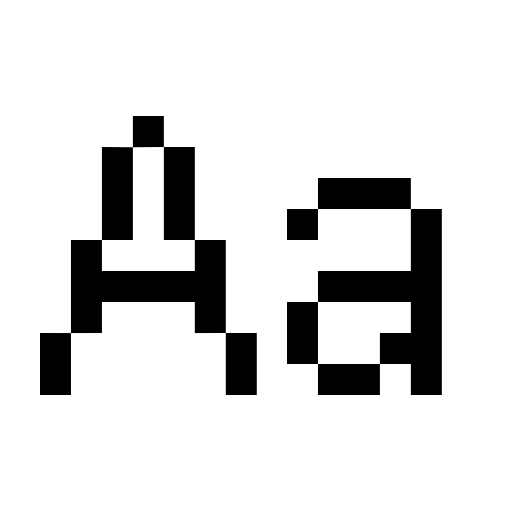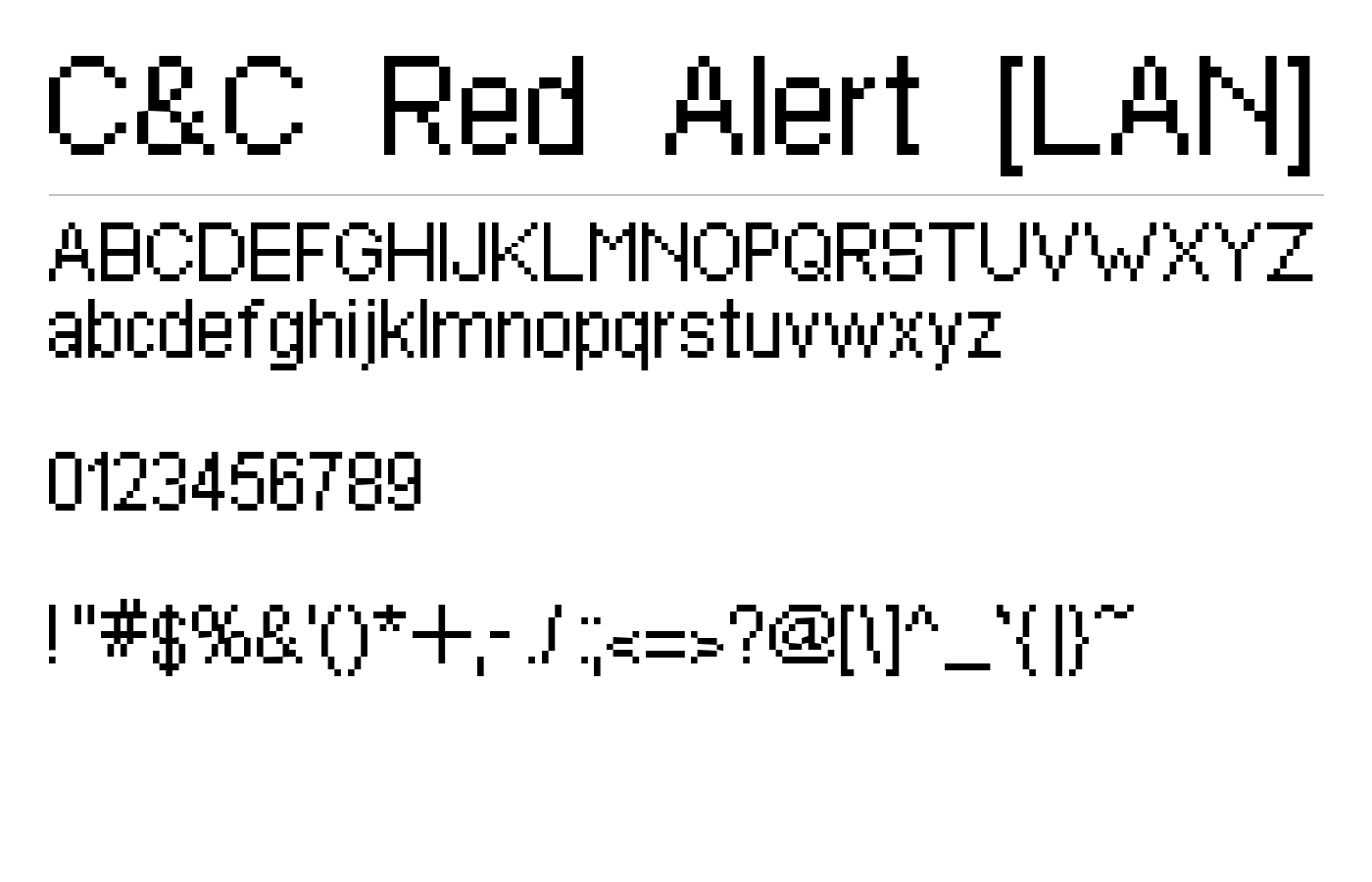
C&C Red Alert [LAN] is a pixelated sans serif font that captures the retro digital aesthetic of early computer screens and video games. Its monospaced, blocky letterforms with sharp corners and uniform stroke weight give it a technical and nostalgic feel, perfect for designs that want to evoke vintage computing or gaming culture. This font works especially well for pixel art projects, game interfaces, and any creative work seeking a classic, geeky vibe.
C&C Red Alert [LAN] Font
About C&C Red Alert [LAN] Font